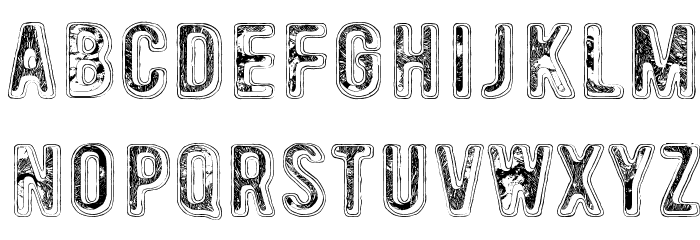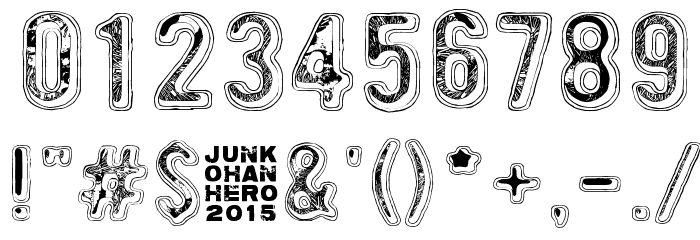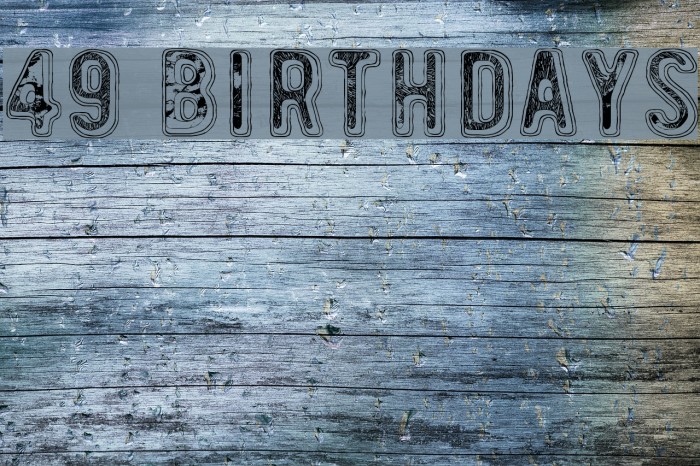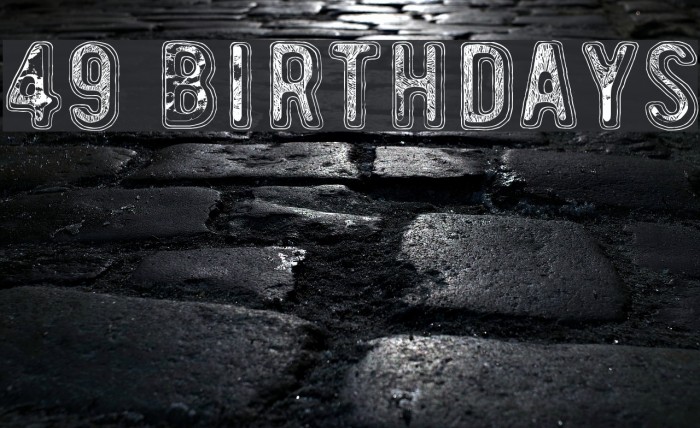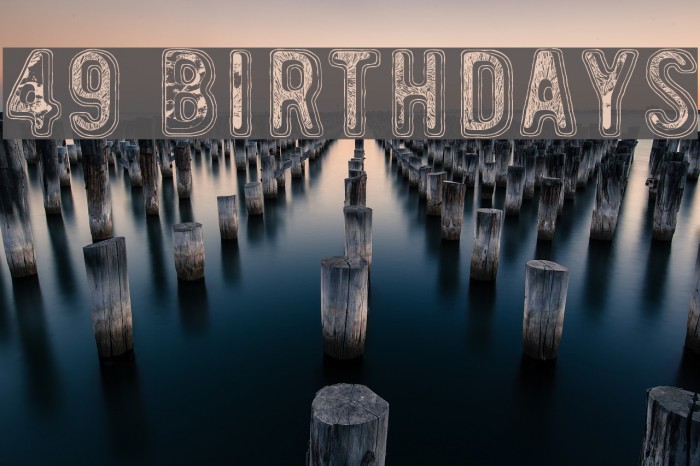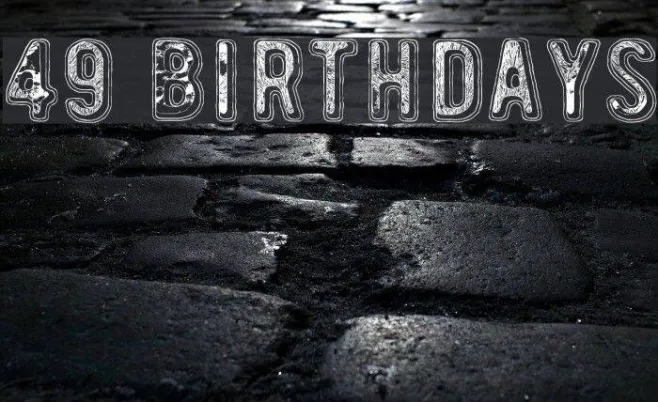
49 birthdays Font
This font features a bold, distressed style with a textured appearance that gives it a rugged, vintage feel. The characters are outlined with a thick border, and the interior is filled with a rough, uneven pattern that adds depth and character. The uppercase and lowercase letters maintain a consistent design, with rounded edges and a slightly condensed form. The numbers and special characters follow the same aesthetic, ensuring a cohesive look across all elements. This font is ideal for projects that require a bold statement with a touch of nostalgia and grit.
A bold, distressed font with a textured, vintage appearance.
- Proposed Projects: Ideal for posters, album covers, branding, and any project needing a bold, vintage look.
- Overall Style: Vintage